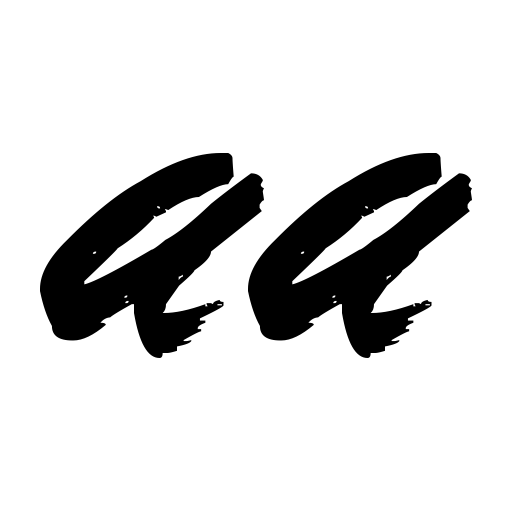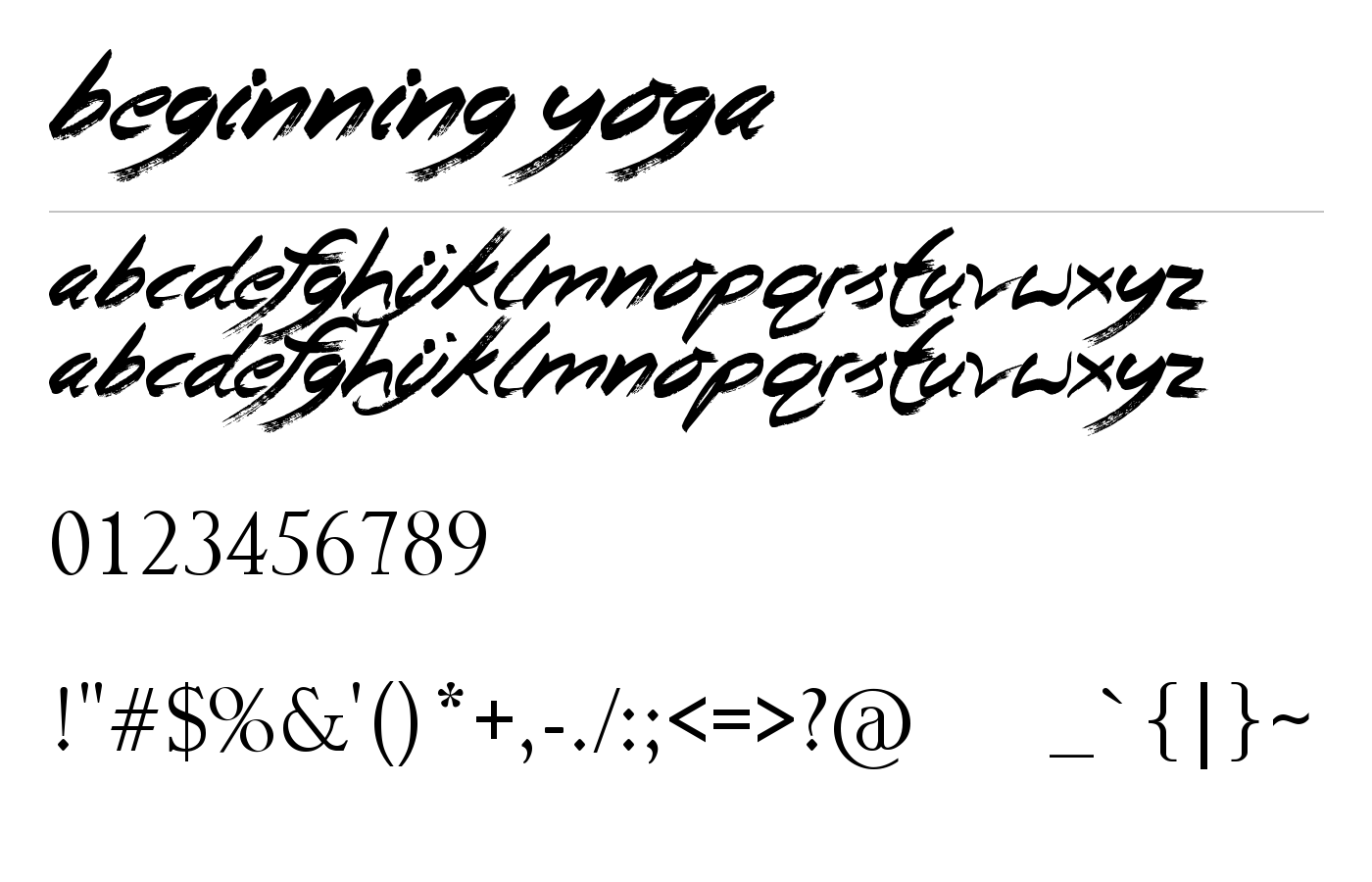
Beginning Yoga is a dynamic, brush-script font that conveys an energetic and artistic feel with its bold, textured strokes and irregular edges. Its lively, handwritten style makes it perfect for creative, casual designs that seek to express movement and individuality, especially in wellness, lifestyle, or artistic branding. This font works best in headlines, logos, and promotional materials where a personal, expressive touch is desired.
Beginning Yoga Font
About Beginning Yoga Font